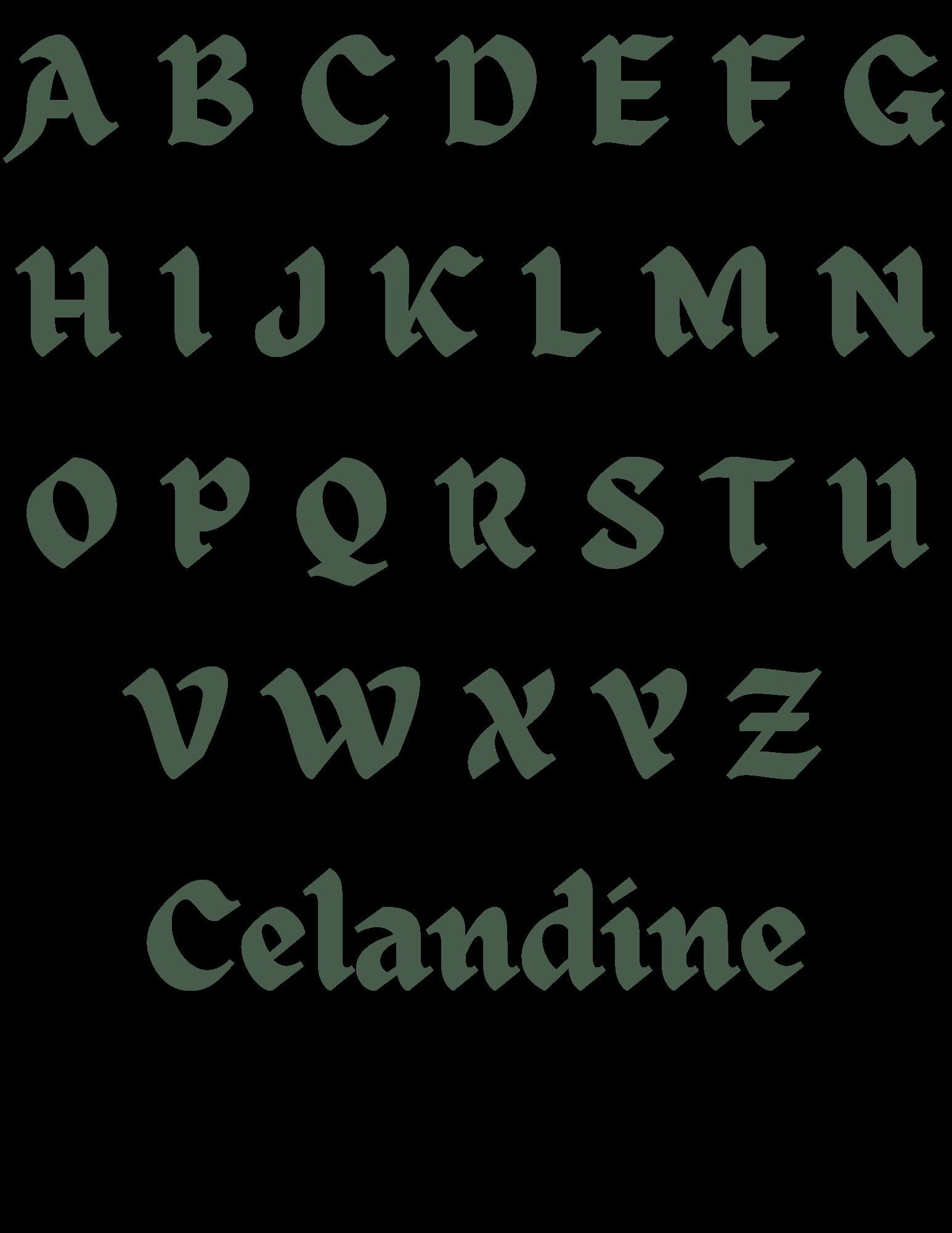
Celandine Font Free Download - Ed celandine font is a blackletter font that is designed in a modern style, minimalist.
Ed celandine font is a blackletter font that is designed in a modern style, minimalist.